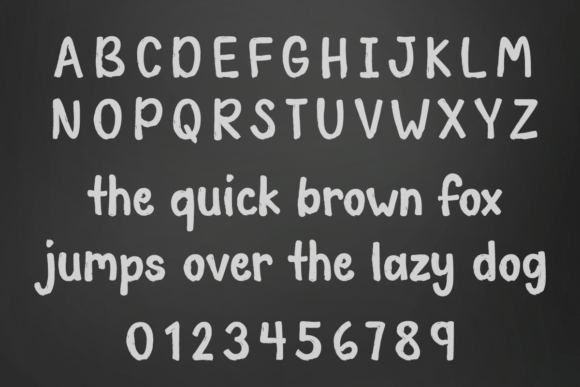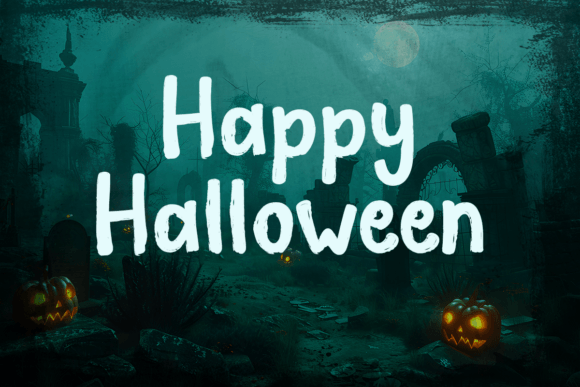
Foggy Cemetery Font: The Perfect Addition to Your Spooky Designs
As the witching hour approaches, designers and crafters are on the lookout for the perfect font to add a chilling touch to their Halloween designs. Look no further than the Foggy Cemetery Font, a rough, eerie typeface that’s sure to send shivers down the spine. With its jagged, weathered edges, this font captures the spooky vibe of misty graveyards and haunted nights, making it the ideal choice for invitations, posters, and creepy projects.
The Inspiration Behind Foggy Cemetery Font
The Foggy Cemetery Font is inspired by the eerie and mysterious atmosphere of old cemeteries, where fog rolls in and shrouds the gravestones in mystery. The font’s design is a nod to the classic horror movies and haunted houses that have captivated audiences for decades. Its rough, distressed texture gives it a worn, aged look that’s perfect for creating spooky and atmospheric designs.
Key Features of Foggy Cemetery Font
- Rough and Eerie Texture: The Foggy Cemetery Font features a rough, textured design that’s perfect for creating spooky and atmospheric designs.
- Jagged and Weathered Edges: The font’s jagged, weathered edges give it a worn, aged look that’s perfect for adding a chilling touch to your designs.
- Perfect for Halloween Designs: The Foggy Cemetery Font is specifically designed for Halloween designs, making it the ideal choice for invitations, posters, and creepy projects.
- Versatile and Easy to Use: The font is easy to use and can be applied to a variety of design projects, from digital designs to print materials.
Uses for Foggy Cemetery Font
The Foggy Cemetery Font is a versatile typeface that can be used for a variety of design projects, including:
- Halloween Invitations: Create spooky and atmospheric invitations for Halloween parties and events.
- Creepy Posters: Design eye-catching posters for horror movies, haunted houses, and other spooky events.
- Gothic and Horror Designs: Add a chilling touch to your gothic and horror designs, including logos, branding, and packaging.
- Crafting and Scrapbooking: Use the Foggy Cemetery Font to add a spooky touch to your crafting and scrapbooking projects.
Tips for Using Foggy Cemetery Font
To get the most out of the Foggy Cemetery Font, here are a few tips to keep in mind:
- Use it Sparingly: The Foggy Cemetery Font is a bold and attention-grabbing typeface, so use it sparingly to avoid overwhelming your design.
- Pair it with Other Fonts: Pair the Foggy Cemetery Font with other fonts to create a unique and eye-catching design.
The Foggy Cemetery Font is a unique and versatile typeface that’s perfect for adding a chilling touch to your Halloween designs. With its rough, eerie texture and jagged, weathered edges, this font is sure to capture the spooky vibe of misty graveyards and haunted nights. Whether you’re a designer, crafter, or horror fan, the Foggy Cemetery Font is a must-have addition to your font collection.